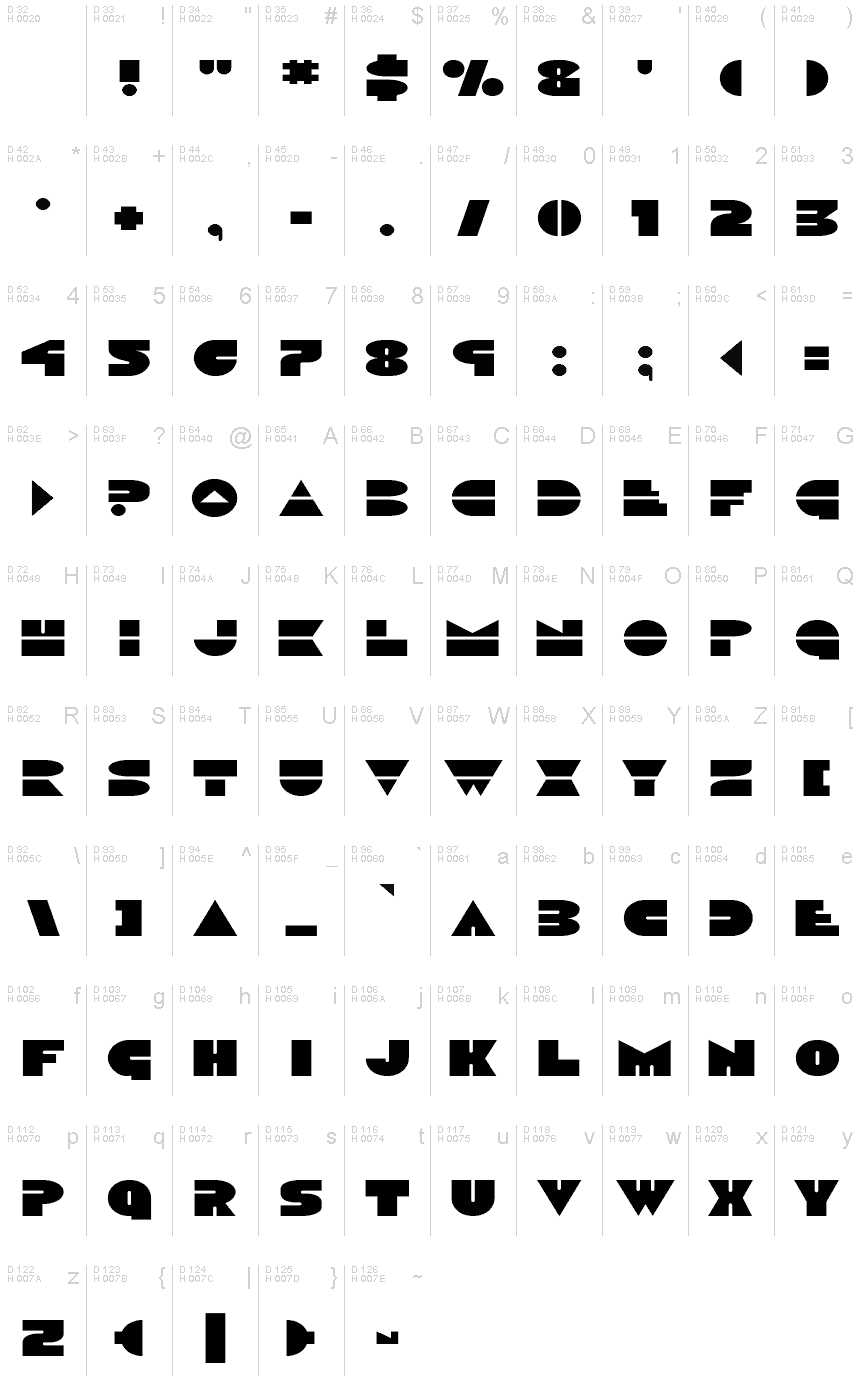
Disco Duck Expanded
Disco Duck Expanded font by Iconian Fonts is a free groovy display typeface that turns every word into a bold, blocky rhythm line. Its wide, chopped letterforms and thick black shapes carve out dramatic white strips, almost like light beams on a club floor. The Disco Duck family look is loud and geometric, but those rounded inner curves keep it fun and dancey instead of harsh, giving your titles a chunky, poster-ready punch.
Using Disco Duck Expanded, headlines feel like they’re stamped out of vinyl and pushed right up to the edge of the page. This free font shines on party flyers, retro music covers, festival posters, arcade signage, bold YouTube thumbnails, and nostalgic branding. Set it huge, keep the tracking tight, and pair it with a clean, lightweight sans serif for body text so Disco Duck can do the heavy visual lifting.